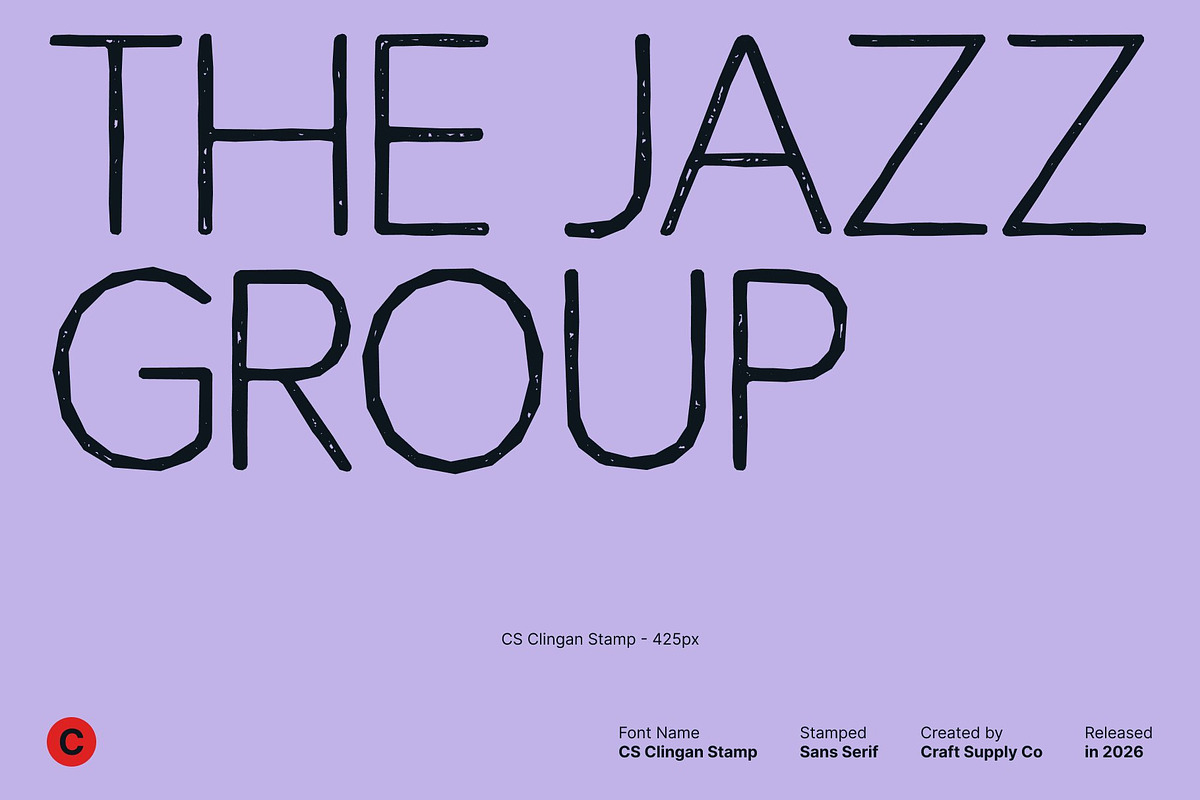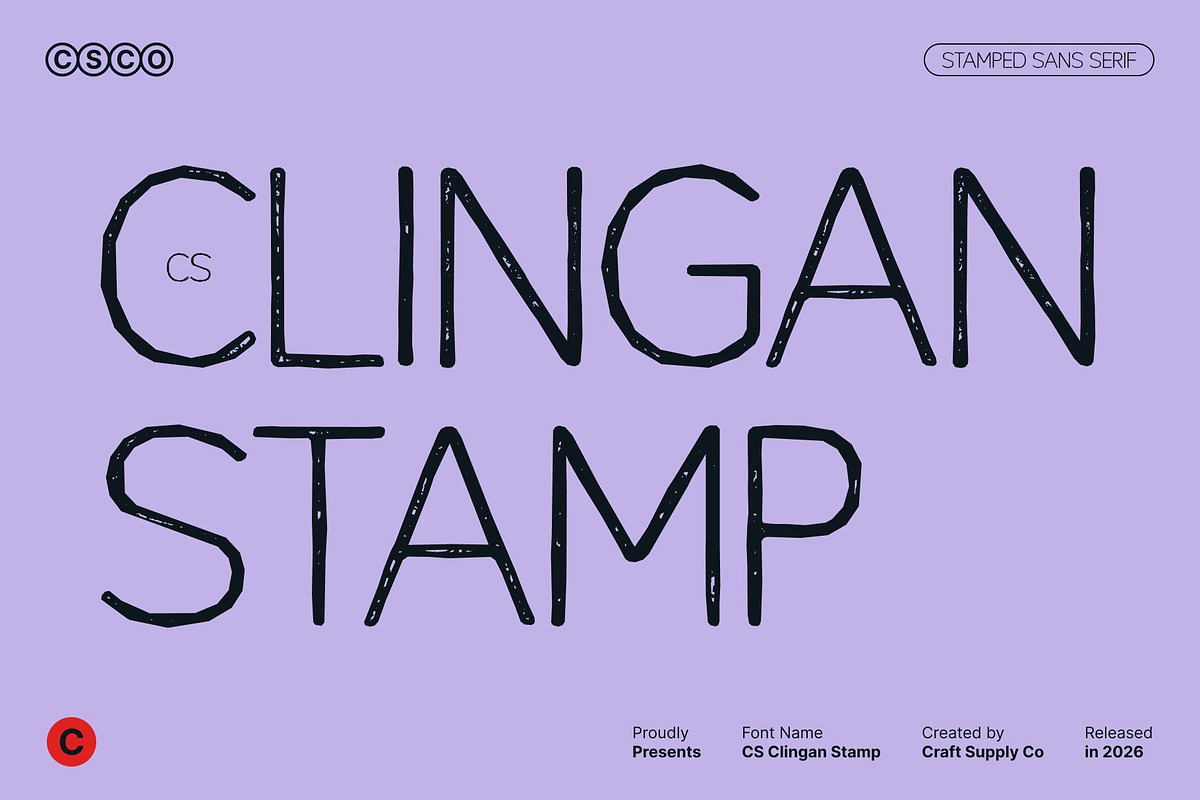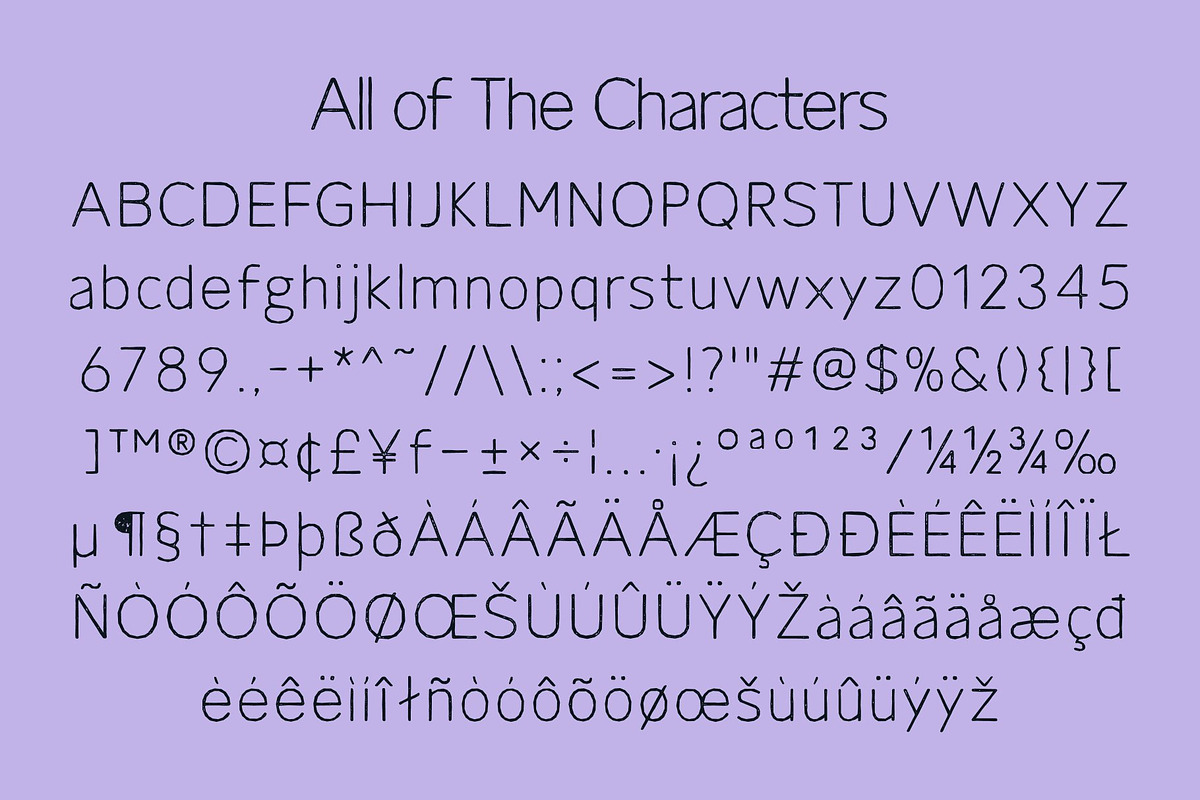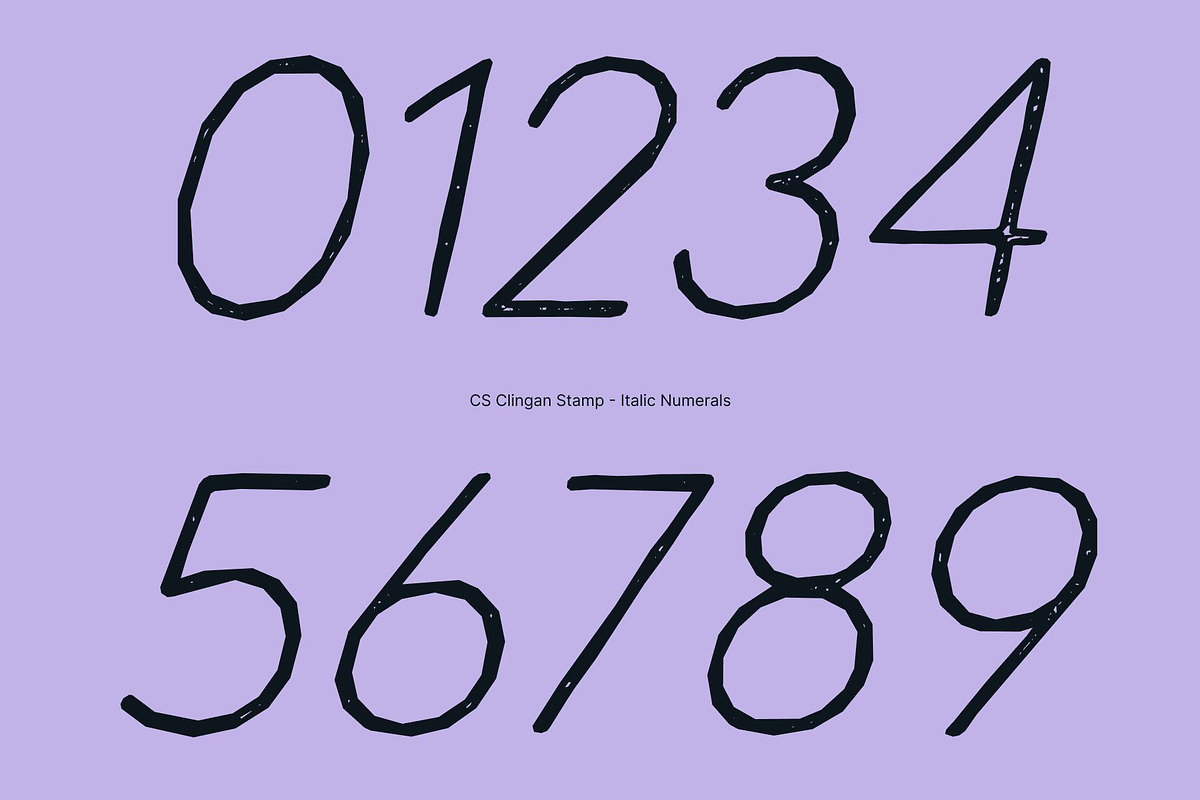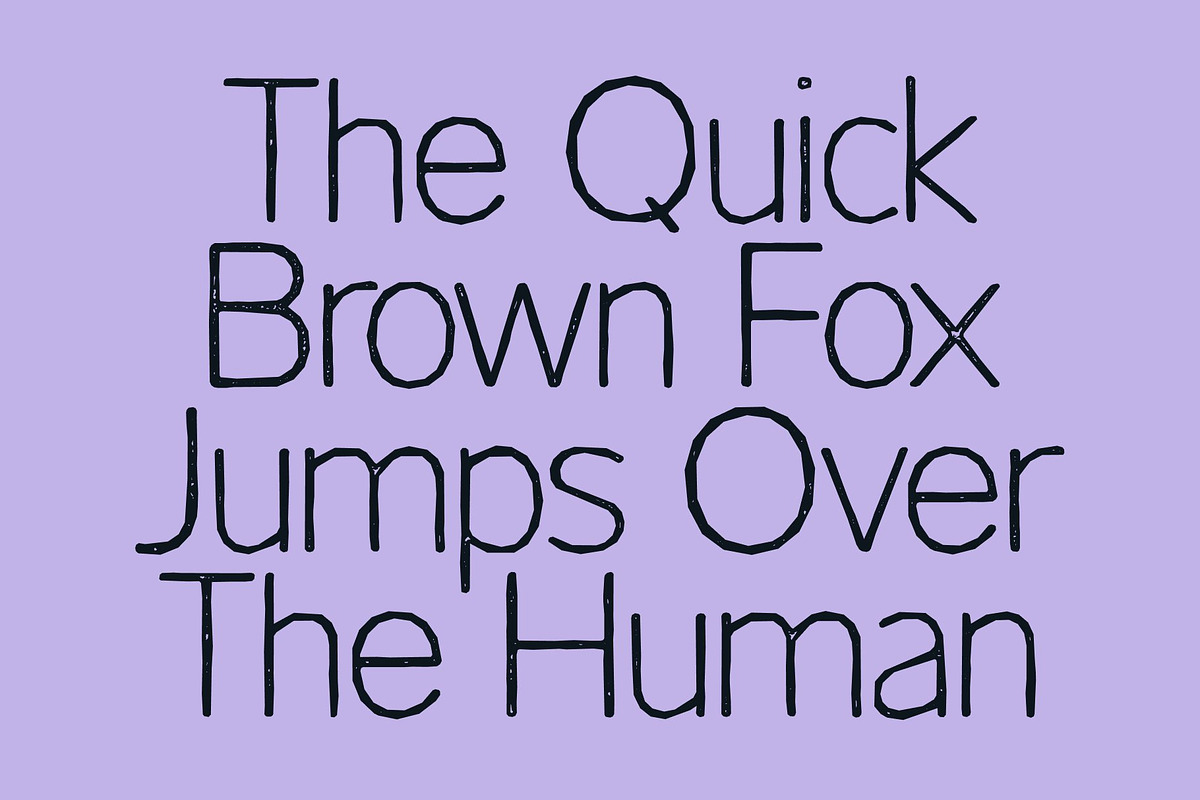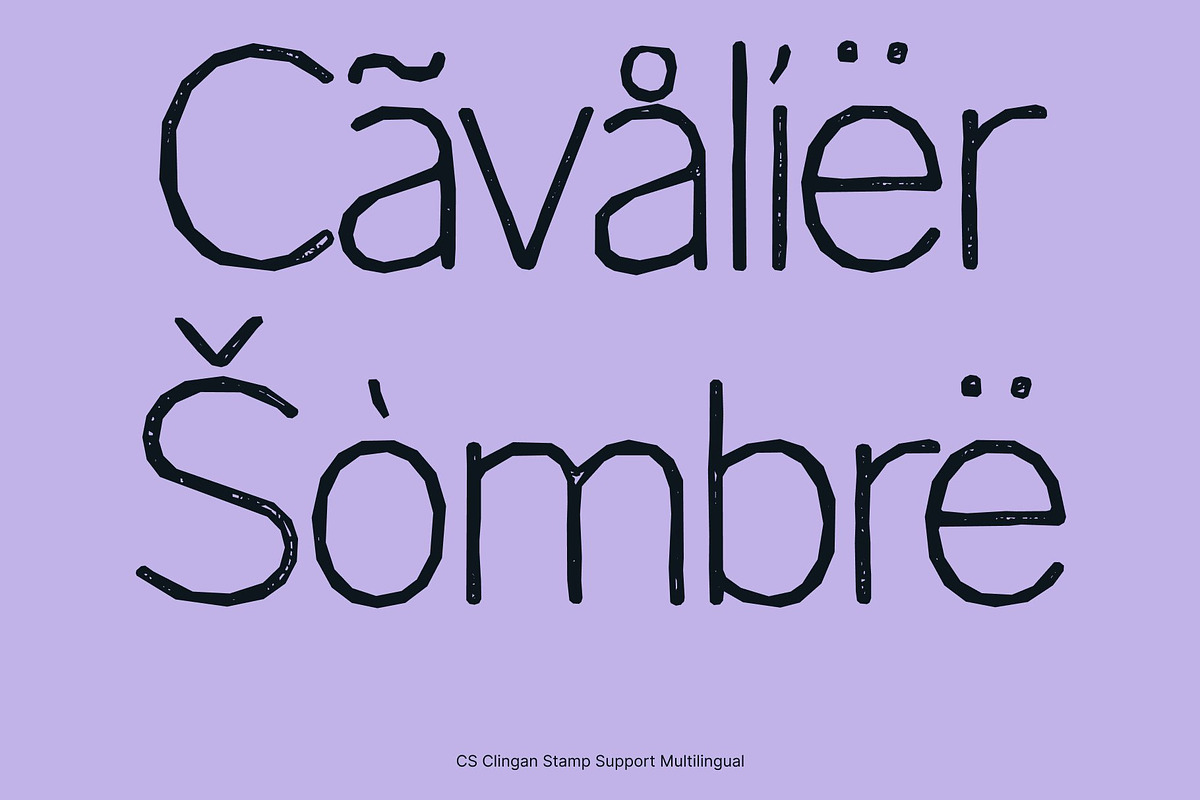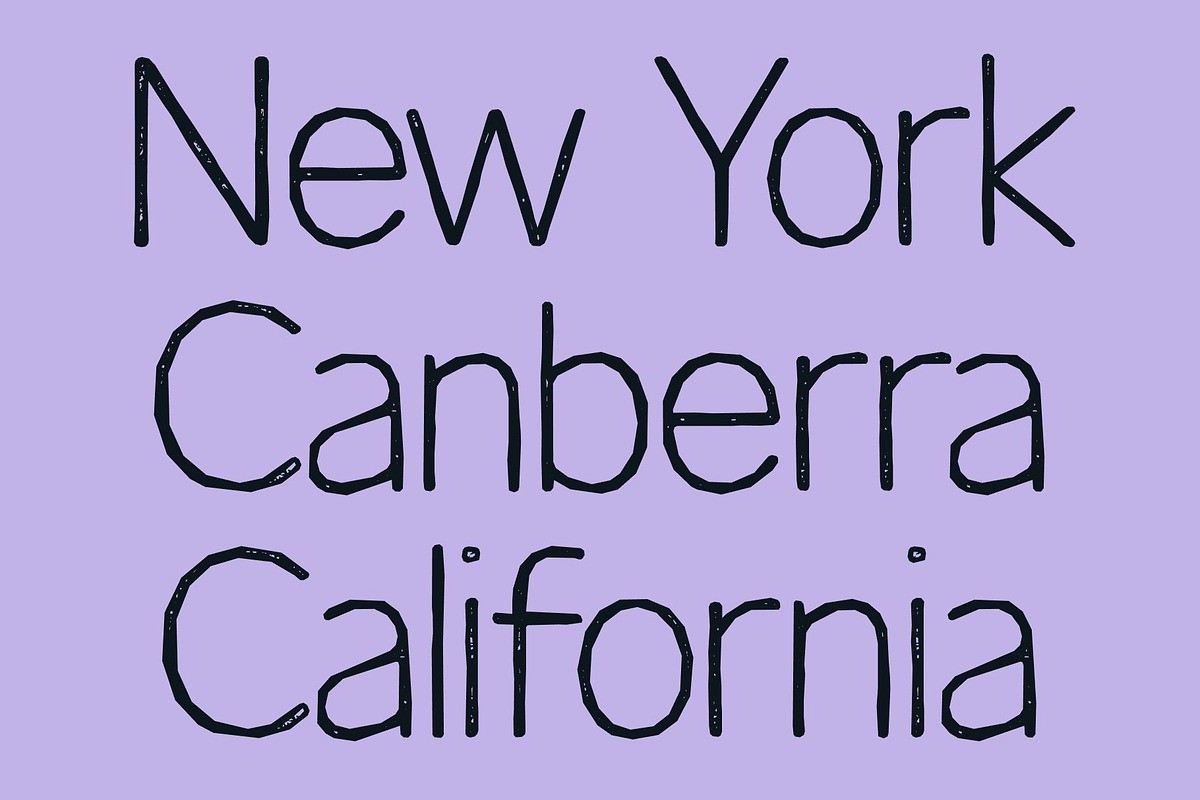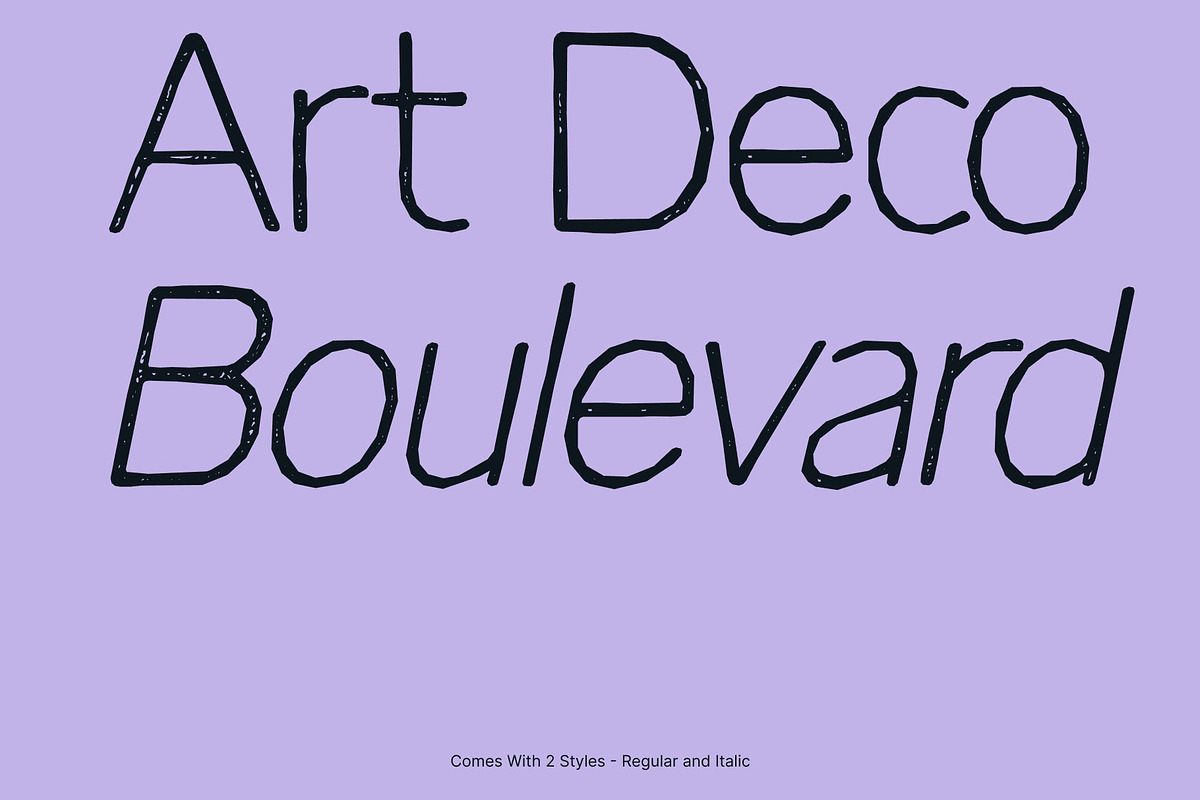
CS Clingan Stamp
CS Clingan Stamp – Minimal Elegance with Subtle Vintage Texture
Thin Modern Sans Serif with Refined Style This is a contemporary sans serif font defined by its thin strokes, clean structure, and minimalist elegance. Its sleek letterforms create a light, airy composition that feels modern, sophisticated, and effortlessly refined. Enhanced with a stamp effect, the font gains a delicate textured finish that introduces a soft vintage character while preserving its clarity.
Minimalist Design with Textured Detail The beauty of this font lies in its simplicity. Fine lines and generous spacing allow each letter to breathe, creating a calm and balanced visual rhythm. The stamp effect adds subtle ink variations and gentle imperfections, giving the font a handcrafted feel that enriches its otherwise precise and modern design.
Quiet Sophistication with Contemporary Appeal This font communicates elegance through restraint. Its lightweight construction and refined proportions convey professionalism and subtle luxury, making it ideal for designs that value clarity and understated style. The added texture ensures it feels warm and distinctive rather than overly clinical.
Perfect for Branding, Editorial, and Digital Design This is well-suited for modern branding, editorial layouts, UI/UX design, logos, and high-end packaging. Its combination of minimalist form and vintage stamp texture creates a versatile typographic voice clean, elegant, and memorable for today’s sophisticated visual communication.